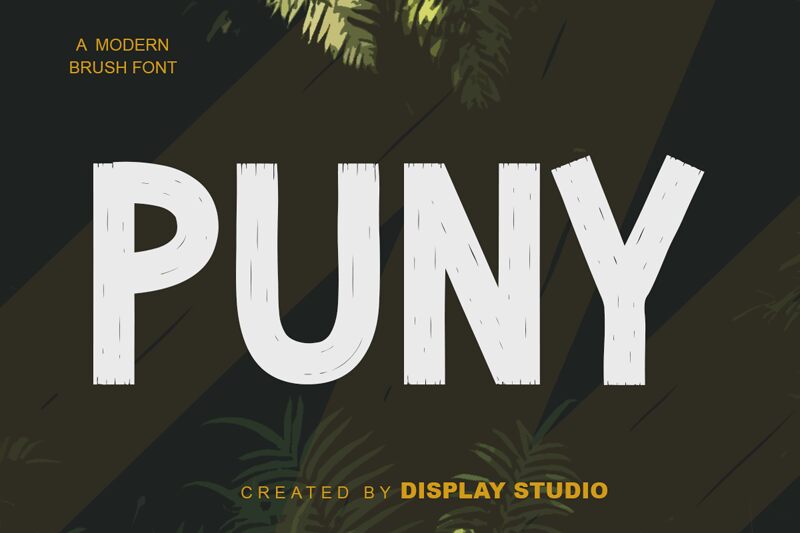
PUNY, a narrow display font designed by Display Studio, is perfect for adding a comic flair to any project. It works great for titles, logos, and posters that need an extra bit of excitement or humor.
PUNY